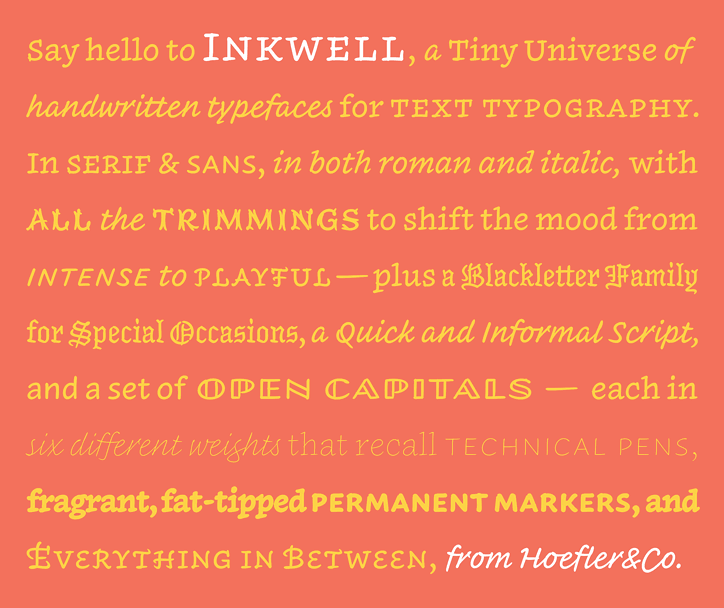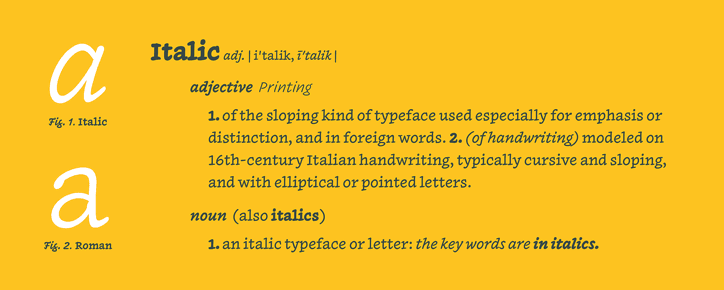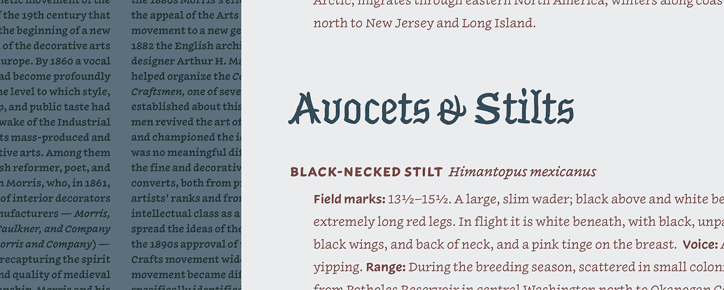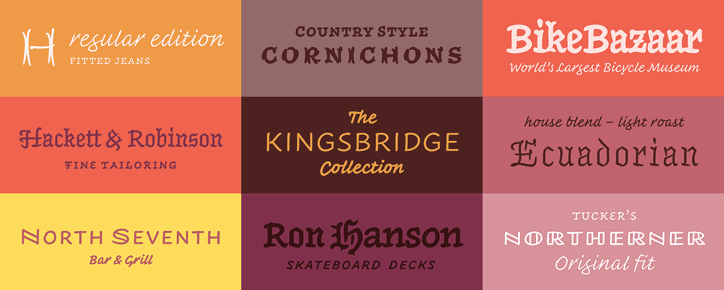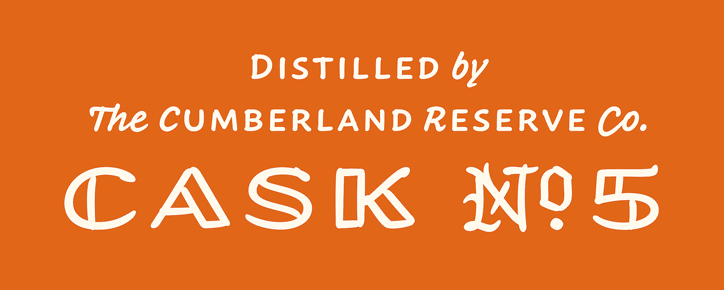
Handwritten typeface Inkwell brings the personality of a pen to a functional font
Inkwell, a font just released by type foundry Hoefler&Co, was developed to find a middle ground between expression and functionality. Based on handwritten designs, the font conveys personality and informality while being as versatile as a standard typeface.
The font comes in a wide variety of styles: serif, sans, script, Blackletter, Tuscan and Open. Each is offered in six weights, from technical pen thin to graffiti marker black, all carefully designed to be harmonious when used together on the page, and can be used on everything from books to apps.
Avoiding many of the associations of old-fashioned lettering and formal calligraphy, Inkwell instead is a contemporary and friendly typeface, with softness and approachability. Compared with the strictness of a font, “handwriting… serves to record the thoughts of an author,” Jonathan Hoefler says, “but has the freedom to move from style to style as the message dictates. A writer might scribble a paragraph in cursive handwriting, but punctuate key points with capitals, or backtrack to over-ink some crucial point with darker and more deliberate strokes. It’s a flexibility that makes handwritten communications compelling.”
Bringing this quality to a functional face for graphic designers to employ in their work, Inkwell “captures the honest and familiar qualities of the pen” with the character set, weight range and technical finish of a high quality font.